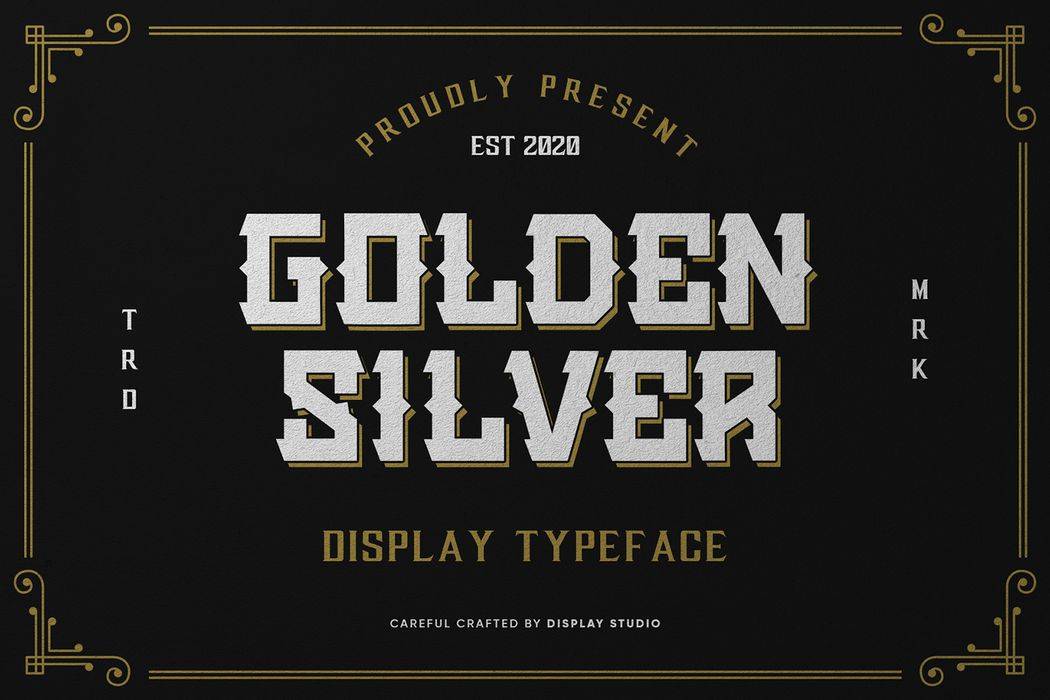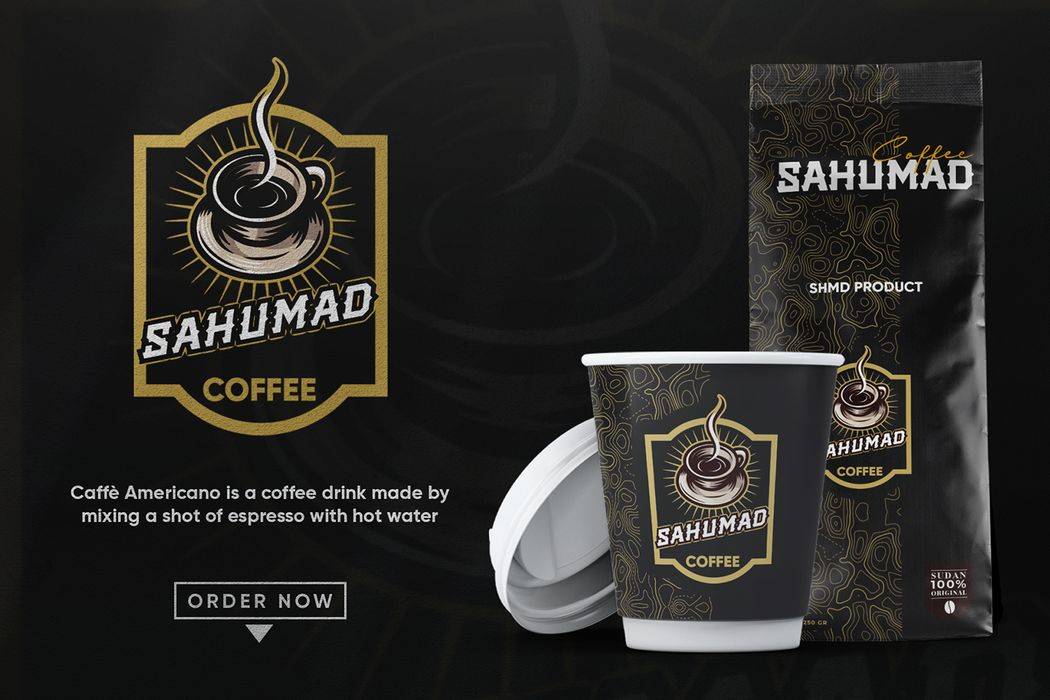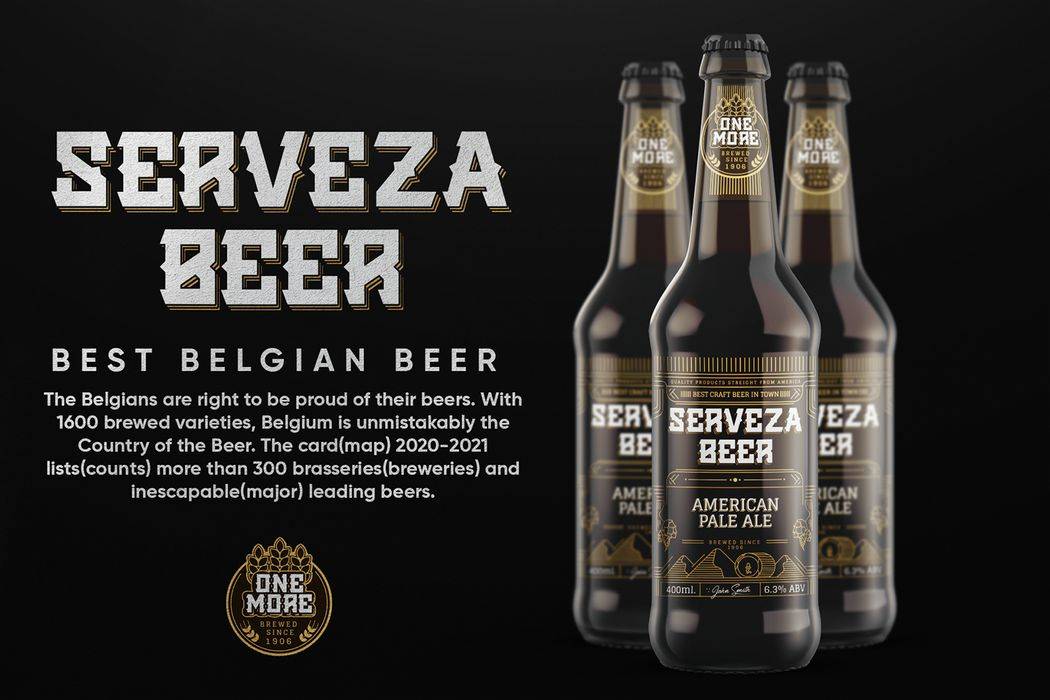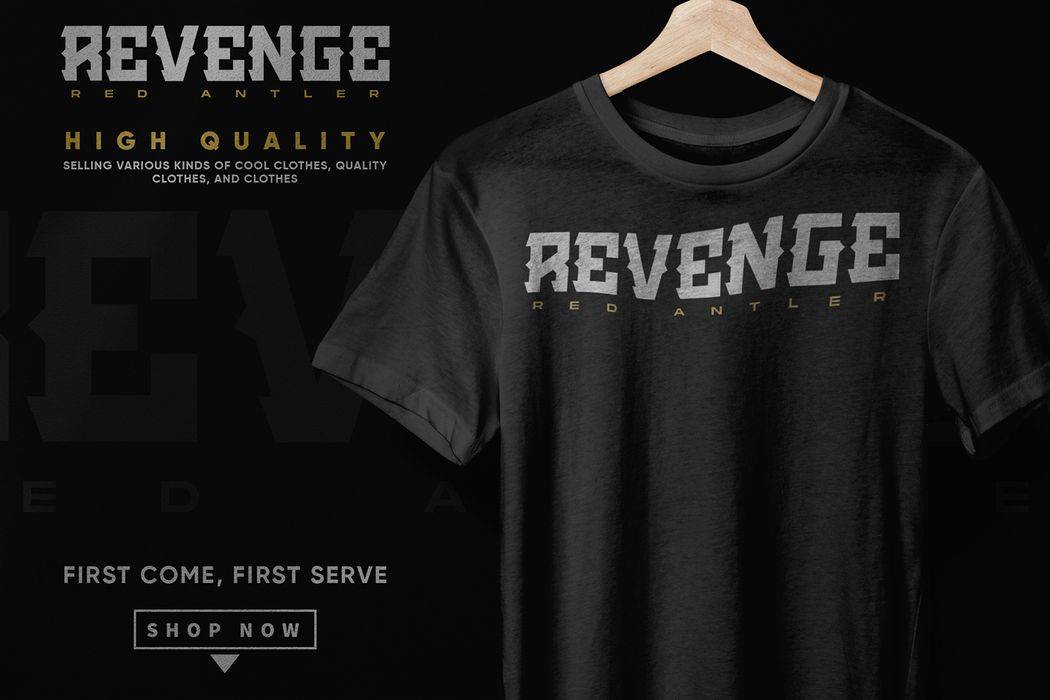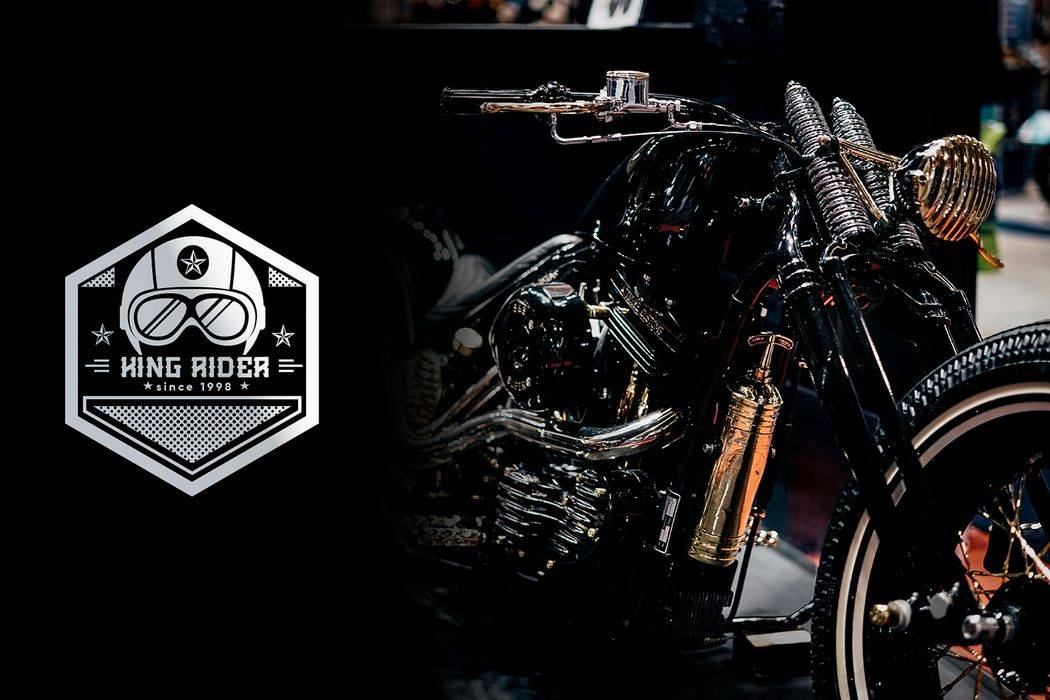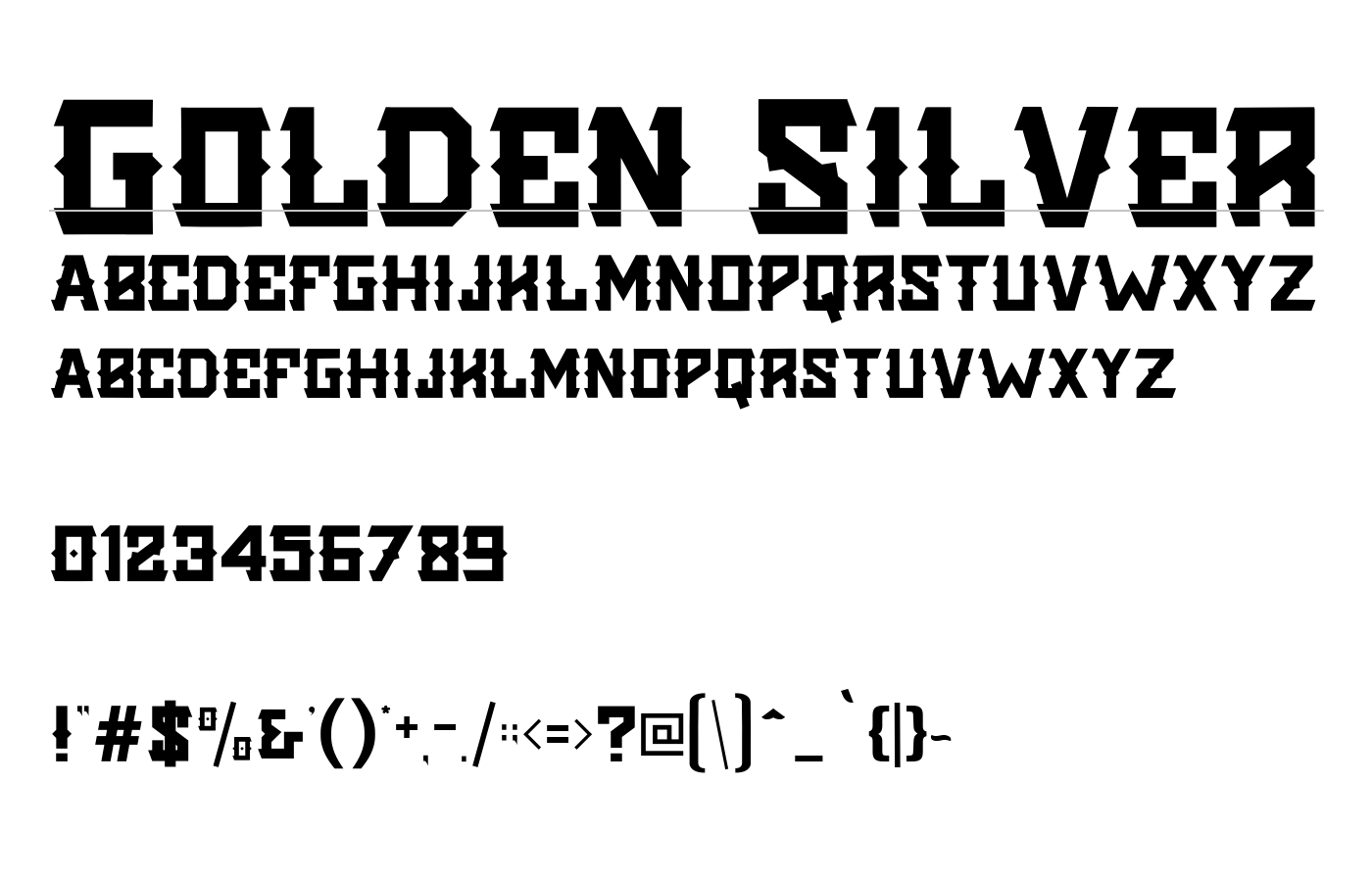
Golden Silver is a bold, condensed slab serif font with a strong, geometric structure and distinctive inward-pointing brackets on its serifs. Its heavy weight and sharp edges lend it a commanding, vintage Western feel, making it ideal for impactful headlines, logos, and branding that require a rugged yet stylish presence. This font works especially well in designs aiming to evoke strength and tradition with a modern twist.
Golden Silver Font
About Golden Silver Font